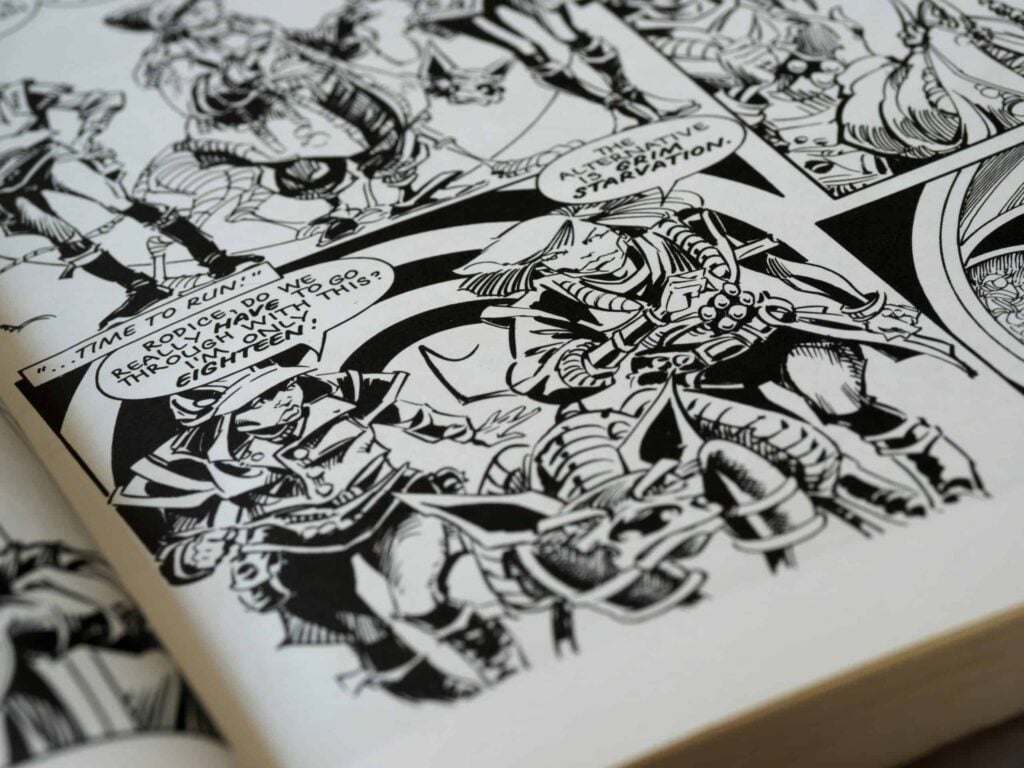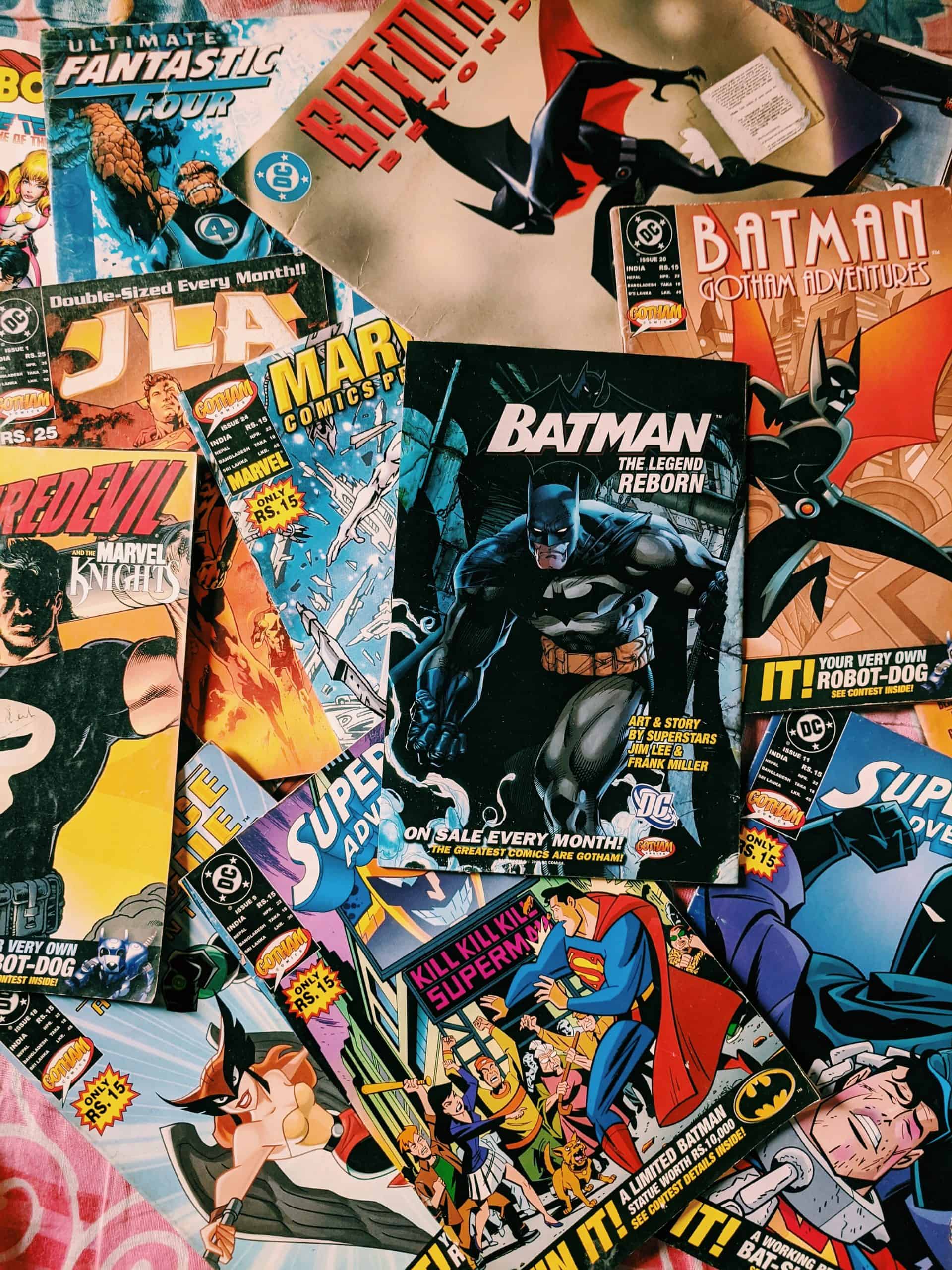
A Designer’s Guide to Comic Book Fonts
Close up of a comic book with dialogue bubbles and characters
When you are a designer, you want your project to be perfect no matter what it is. Having even the slightest detail off can throw your whole project out of whack. Take a comic book for example. You may have beautiful graphics and a killer storyline, but if your comic book font does not fit with the overall aesthetic or contains glaring errors, your readers will notice. A die hard comic book fan along with industry professionals view comic lettering font as an indicator of the overall quality of a comic. From start to finish, every detail of your design project is important, even the font. Here is our designer’s guide to comic book fonts.  But what font do comics use? Here is our designer’s guide to comic book lettering fonts.
A history of comic book fonts
When comic books were first introduced to the world, comic book lettering involved putting all of the words on a comic page, as well as the borders or balloons around them, any titles, signs or sound effects, all by hand. Yes, comic book designers used to have to hand letter their comics with a technical pen or a #107 nib. This lasted for about half a century, meaning that comic book fonts were handwritten by numerous people, yet it is one of the most widely recognized fonts to this day. Thankfully, these days you don’t have to go through the painstaking process of hand lettering every single page. With the digital age comes the ability to digitally letter comic books along with an array of comic book fonts to choose from.
That being said, even though the work that goes into making graphic novels or comic books has become easier, you still need to know which comic fonts to choose when you create new projects. Let’s explore the best practices of using the wide array of symbols and tools to make sure you are working within the rich comic book tradition.
A pile of classic comic books
Comic book font guidelines
When it comes to comic font style, classic comics follow certain grammatical and aesthetic traditions specific to the comic book genre. Many of these guidelines were established by Marvel and DC, although each letterer and editor can apply their own unique spin on them.
• Asterisks: when you see an asterisk in comic book dialogue, you know to look for a caption located somewhere on the page including information referencing other issues or explaining an acronym.
• Burst Balloons: a burst balloon is used when a character is screaming their dialogue. They are often bold with enlarged or underlined words for more emphasis.
• Balloon Tails: balloon tails are used to indicate which character is speaking and are often pointing to the characters mouth.
• Double Dash: a double dash is used when a character’s dialogue is interrupted. This is not interchangeable with an ellipses. There are only two dashes in a double dash.
• Ellipses: An ellipses is used when a character’s dialogue trails off. If a character trails off in one balloon and resumes in another, the first balloon ends with an ellipses and the second begins with one. There are only three dots in an ellipses.
• Bold Italic: Bold italic is used to place emphasis on a specific word. In classic comics, you will mostly see bold italic as opposed to regular bold.
• Breath Marks: Breath marks consist of three small dashes vertically stacked before or after a character coughs or sputters.
• Breaking Borders: This is another style choice dependent upon the editor, but this is when the white interior of a balloon breaks into the white of the panel gutters.
• Captions: Comics can contain four different types of captions:
• Location and time are in the same font as the dialogue, only located inside a caption box and in italics.
• Internal monologue is typically larger and replaces thought balloons and represents the inner voice of the character.
• Spoken represents the speech of a character that is off camera (or off the page).
• Editorial represents the voice of the writer or editor and is also in italics.
• Butting Balloons: This technique is used to combat limited space. This is when part of a balloon is cropped flat and placed up against the border.
• Double Outline Balloons: Double outline balloons portray the same effect as a burst balloon, emphasizing dialogue.
• Drop Caps: Drop caps are enlarged and/or embellished first letters in a caption. The style of these is dependent on the letterer.
• Crossbar “I”: An I including both the top and bottom crossbars is mostly only used for the personal pronoun, “I” or in acronyms.
• Hyphenating: If need be a long compound word that breaks well can be hyphenated in order to fit in the balloon.
• Italic: Italics is used quite a bit throughout comic book font. You will see italics applied to dialogue such as internal monologues, captions, broadcast balloons etc.
• Sound Effects: Any noise occurring in the comic that is not speech is displayed in a type that conveys the properties and intensity of the noise.
• Squink: A squink is a small, multi-pointed burst that appears at the end of a balloon tail when the character is speaking from off-camera behind a door or inside another building.
• Small dialogue in Big Balloon: Using small dialogue in a big balloon represents a character that is muttering or speaking to him/herself. This can also be used for whispering.